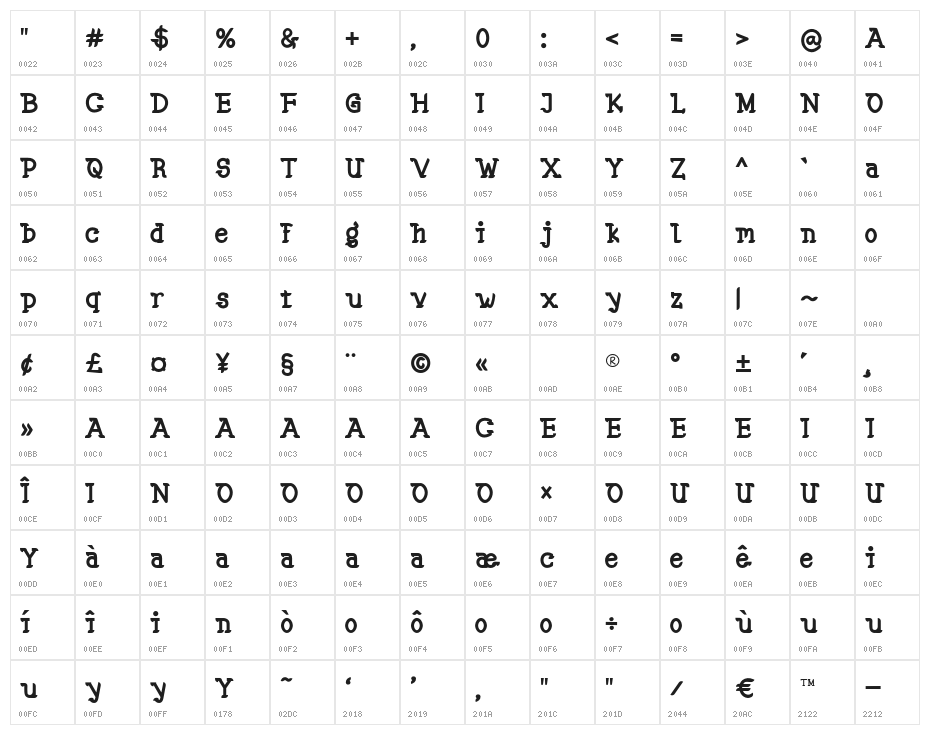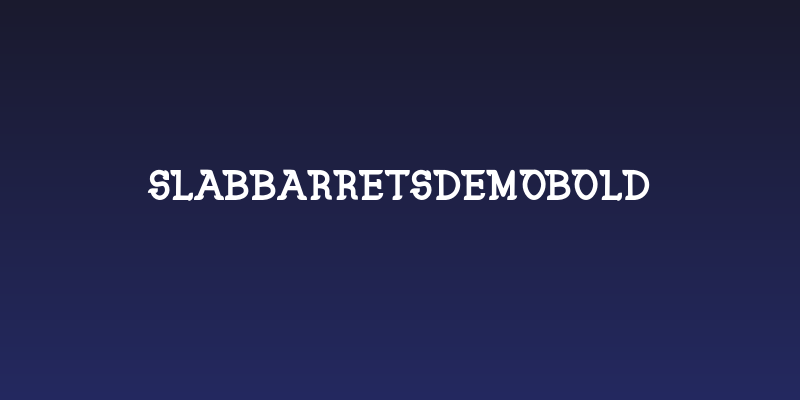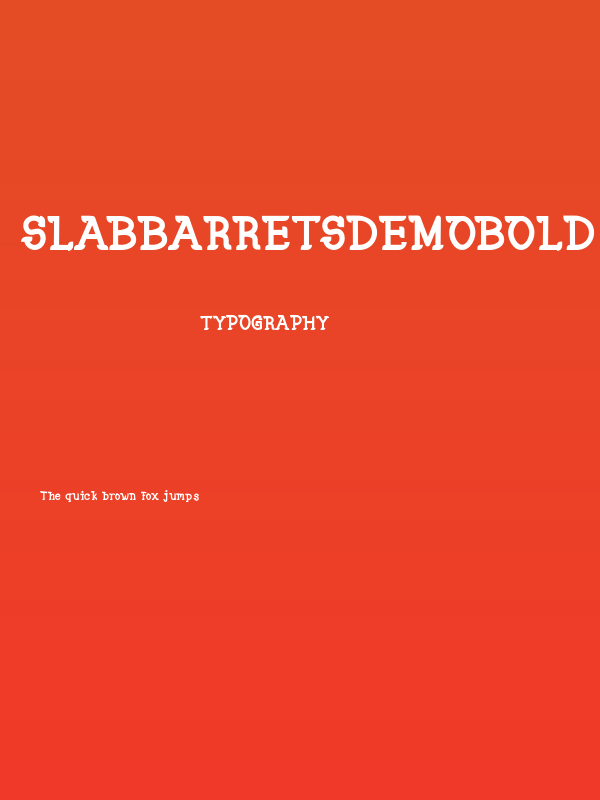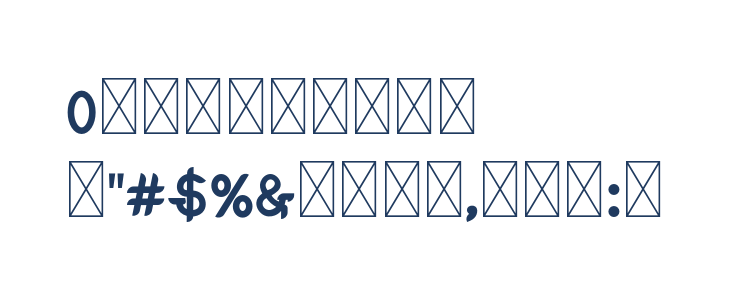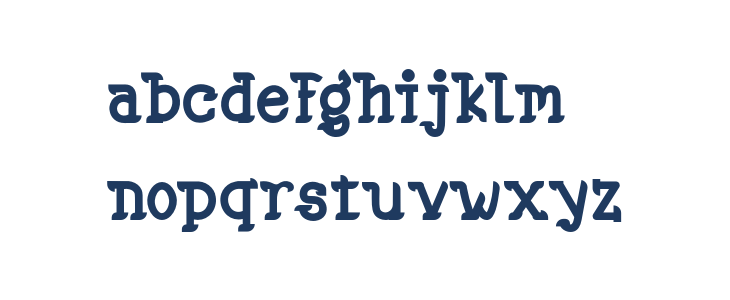
SlabBarretsdemoBold Font
SlabBarretsdemoBold Description
This font features a bold and robust slab serif style with strong, block-like serifs that give it a commanding presence. The characters are well-defined with a consistent stroke width, providing a uniform appearance across both uppercase and lowercase letters. The uppercase letters exhibit a traditional serif structure, while the lowercase letters maintain a similar weight and style, ensuring readability. The font's design is reminiscent of vintage typefaces, yet it maintains a modern appeal through its clean lines and balanced proportions. The spacing between characters is normal, allowing for clear legibility in various text sizes. This font is particularly suited for projects that require a bold statement, such as headlines or logos.
| Proposed Projects | Ideal for headlines, logos, posters, and branding materials that require a bold and impactful typeface. |